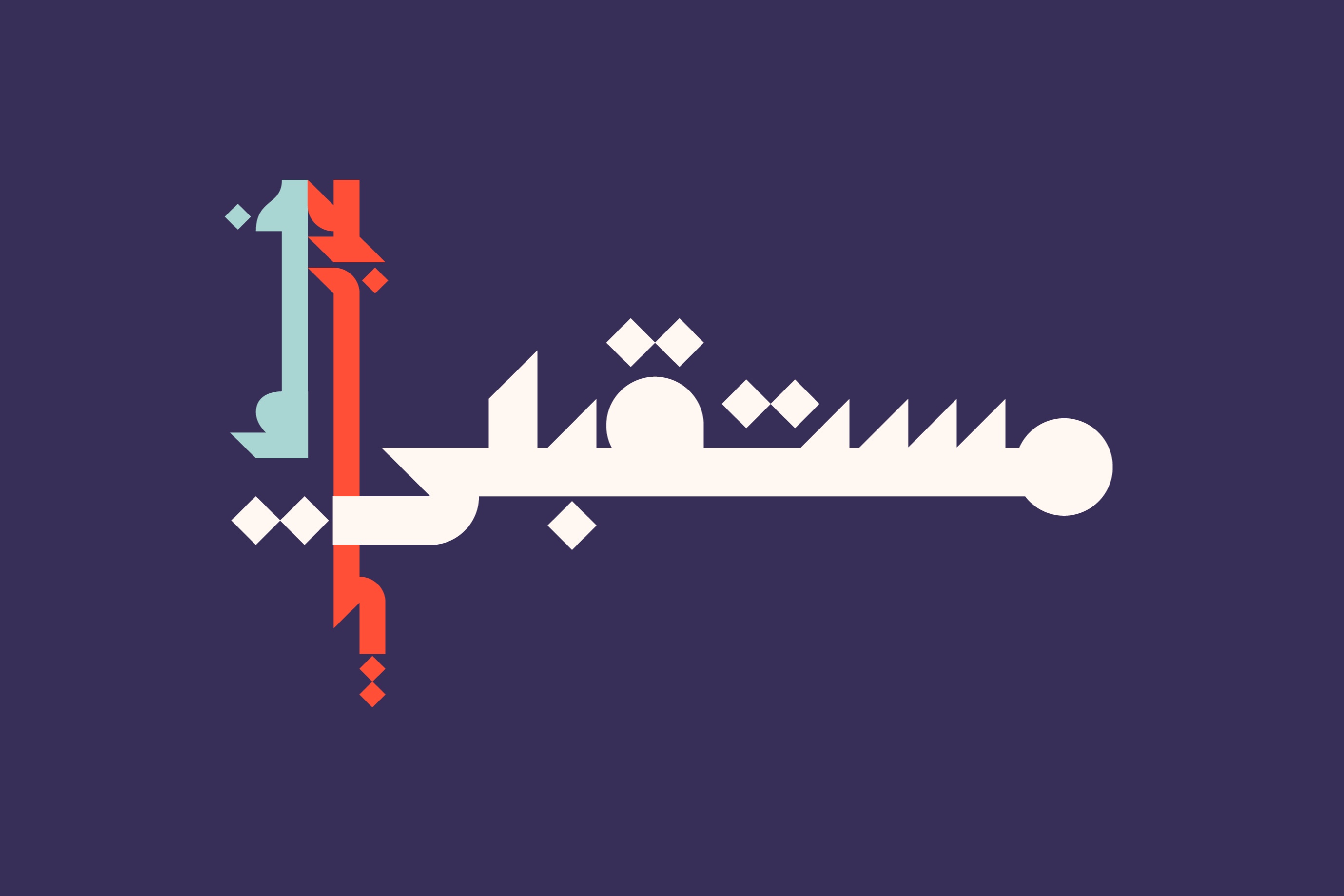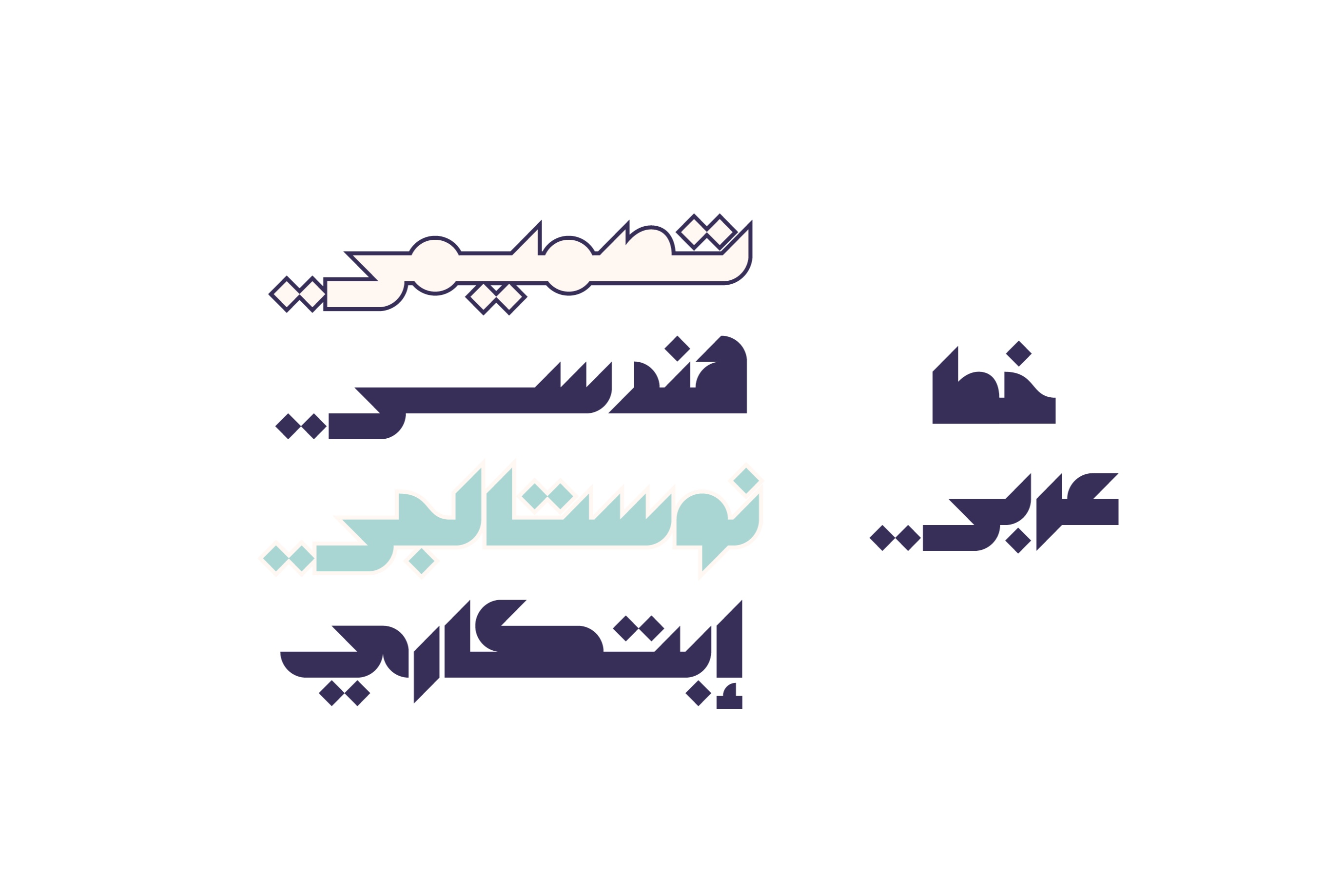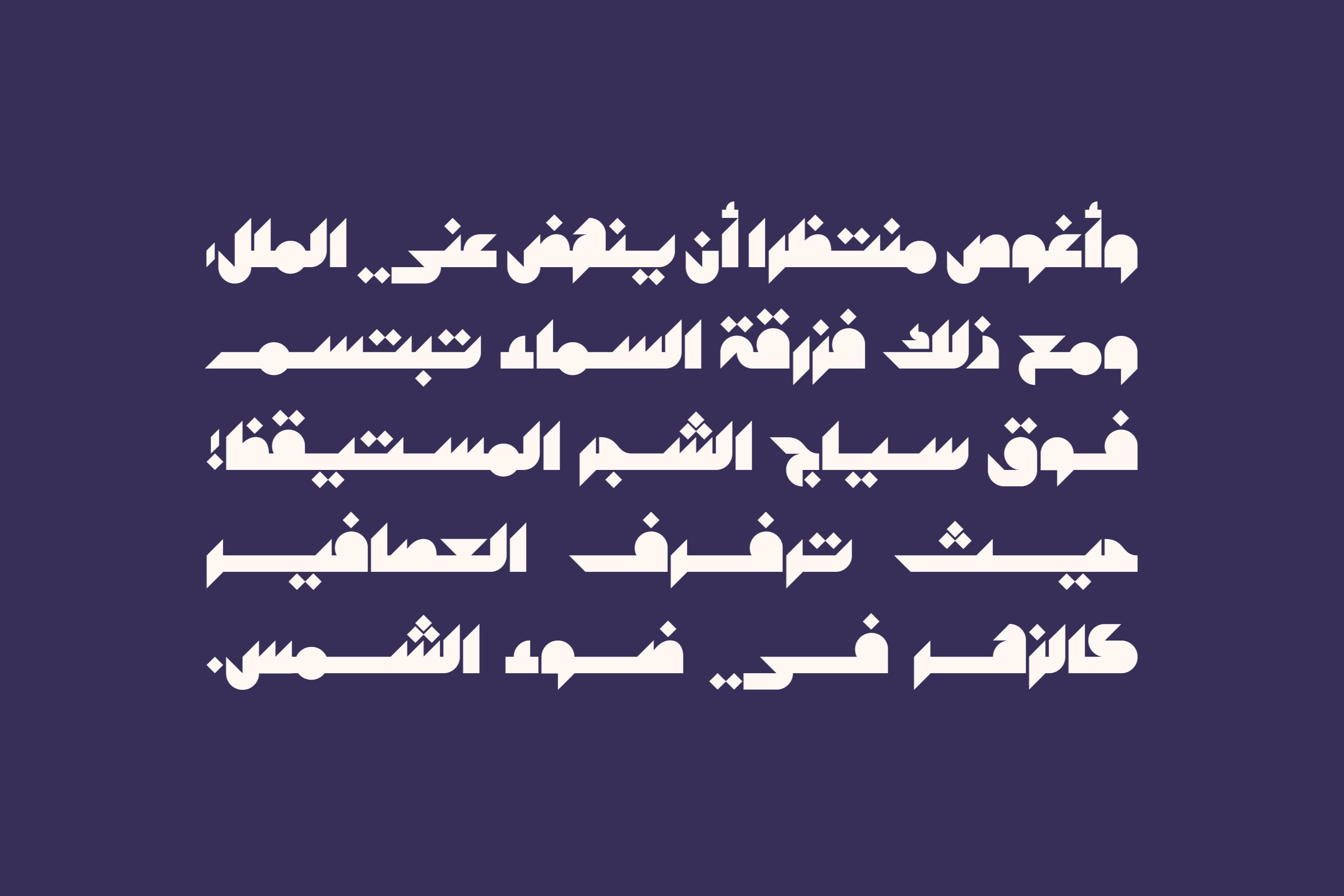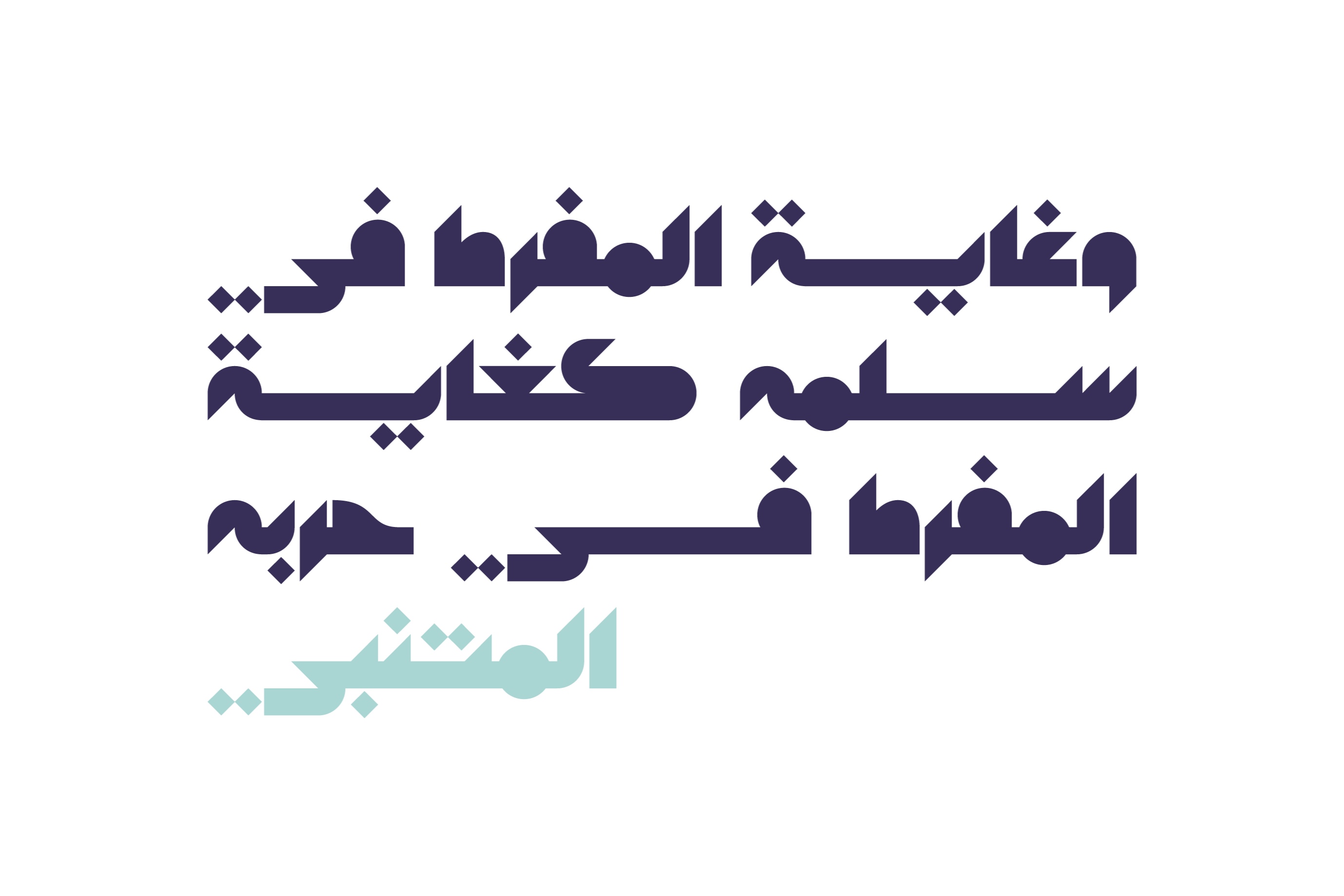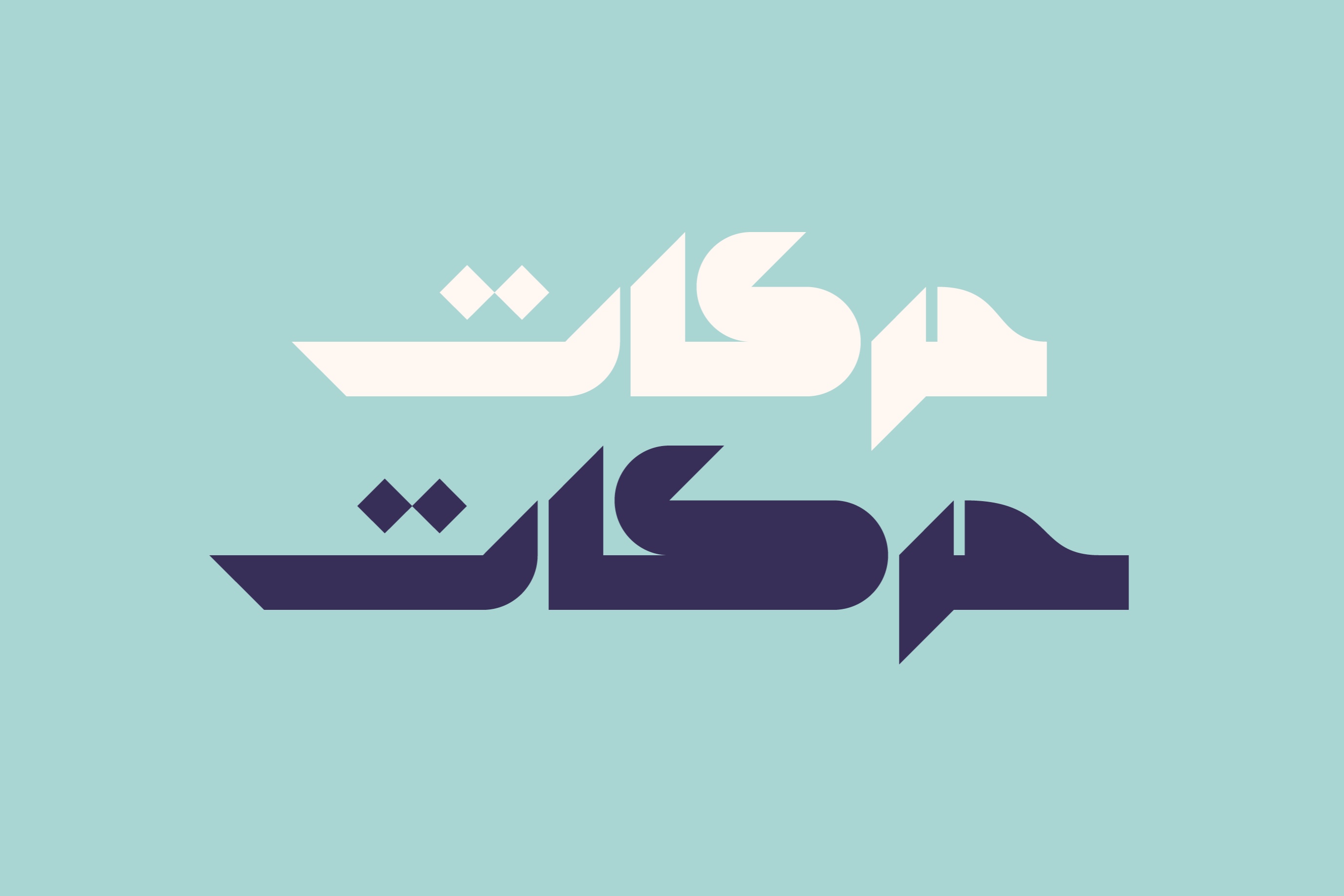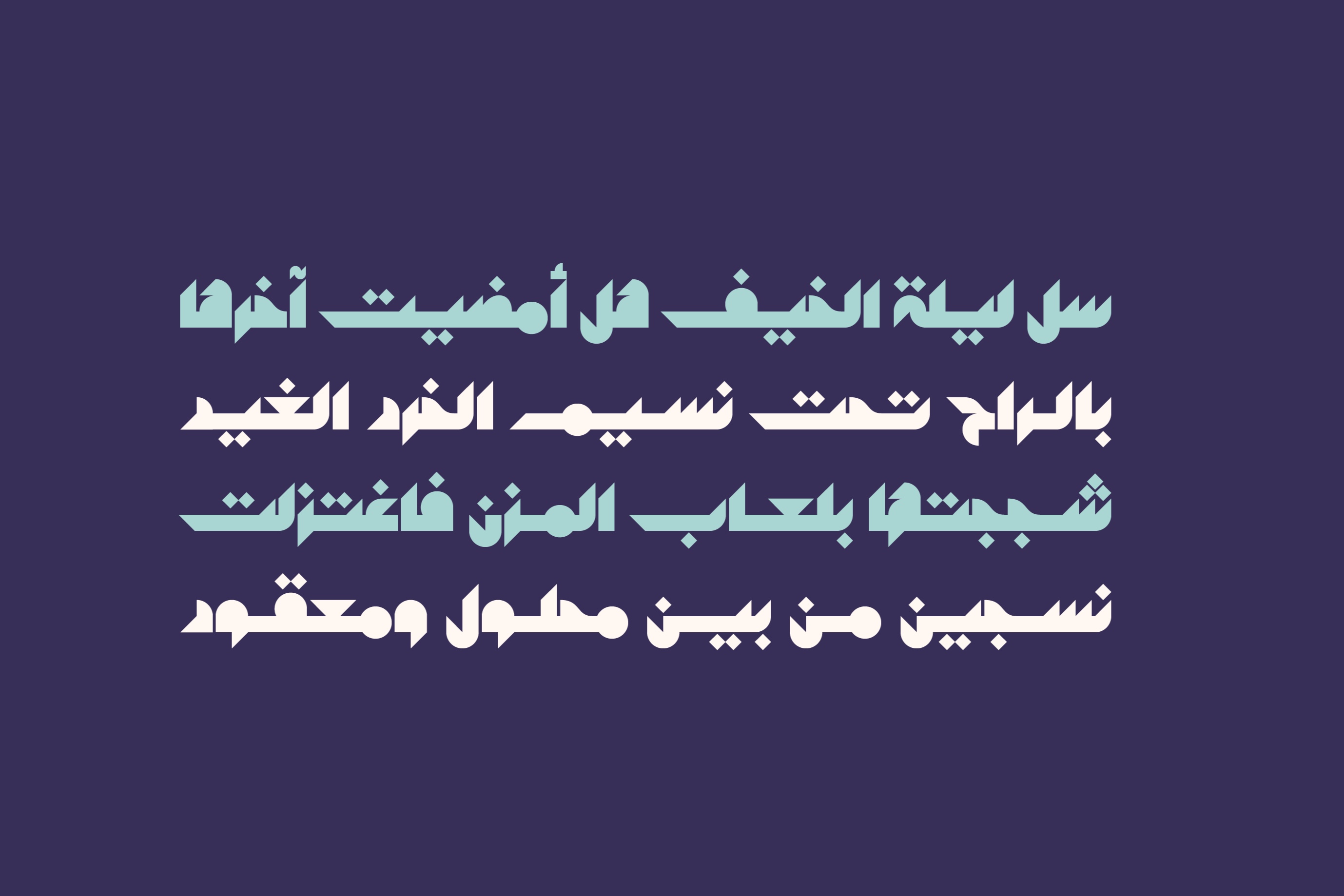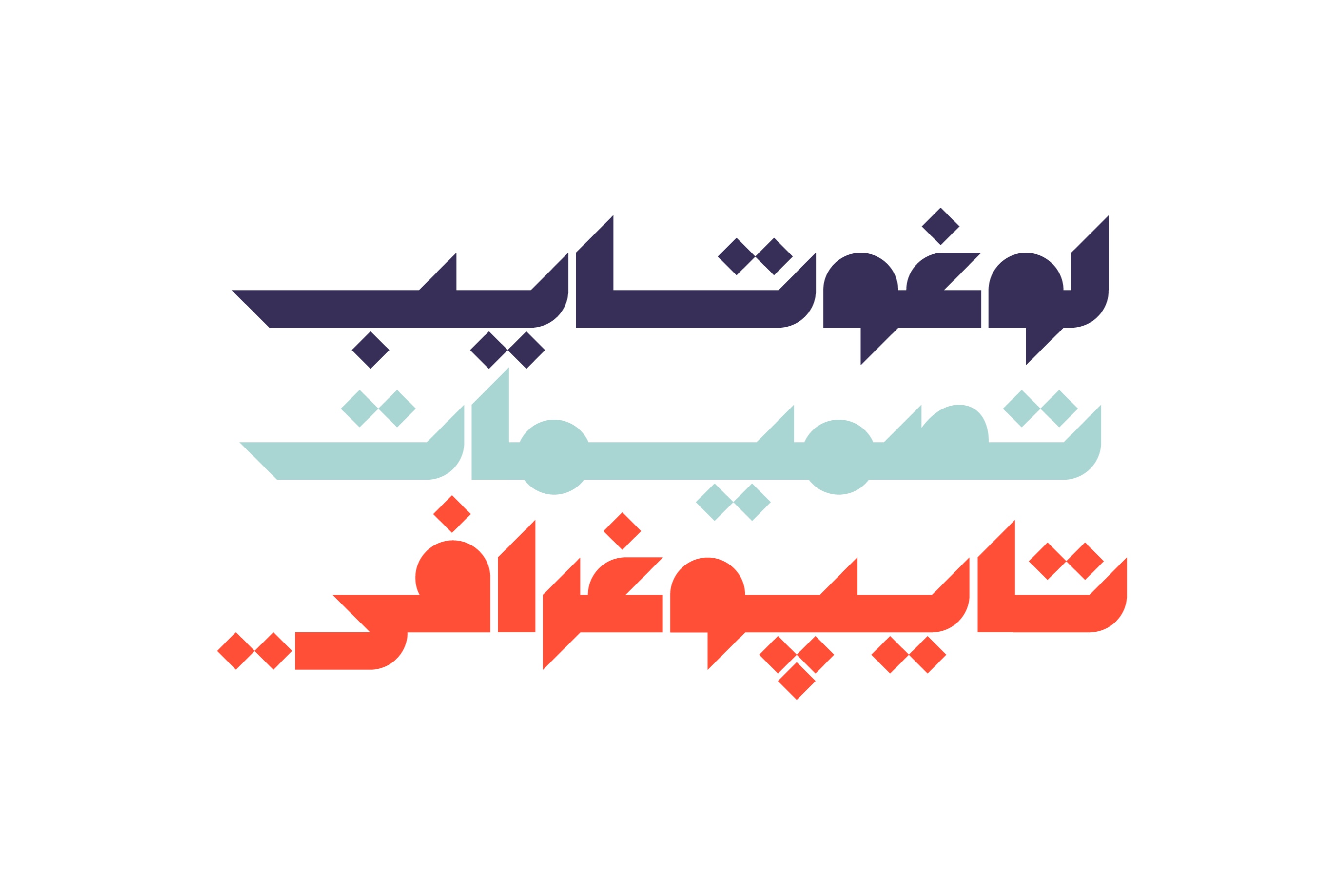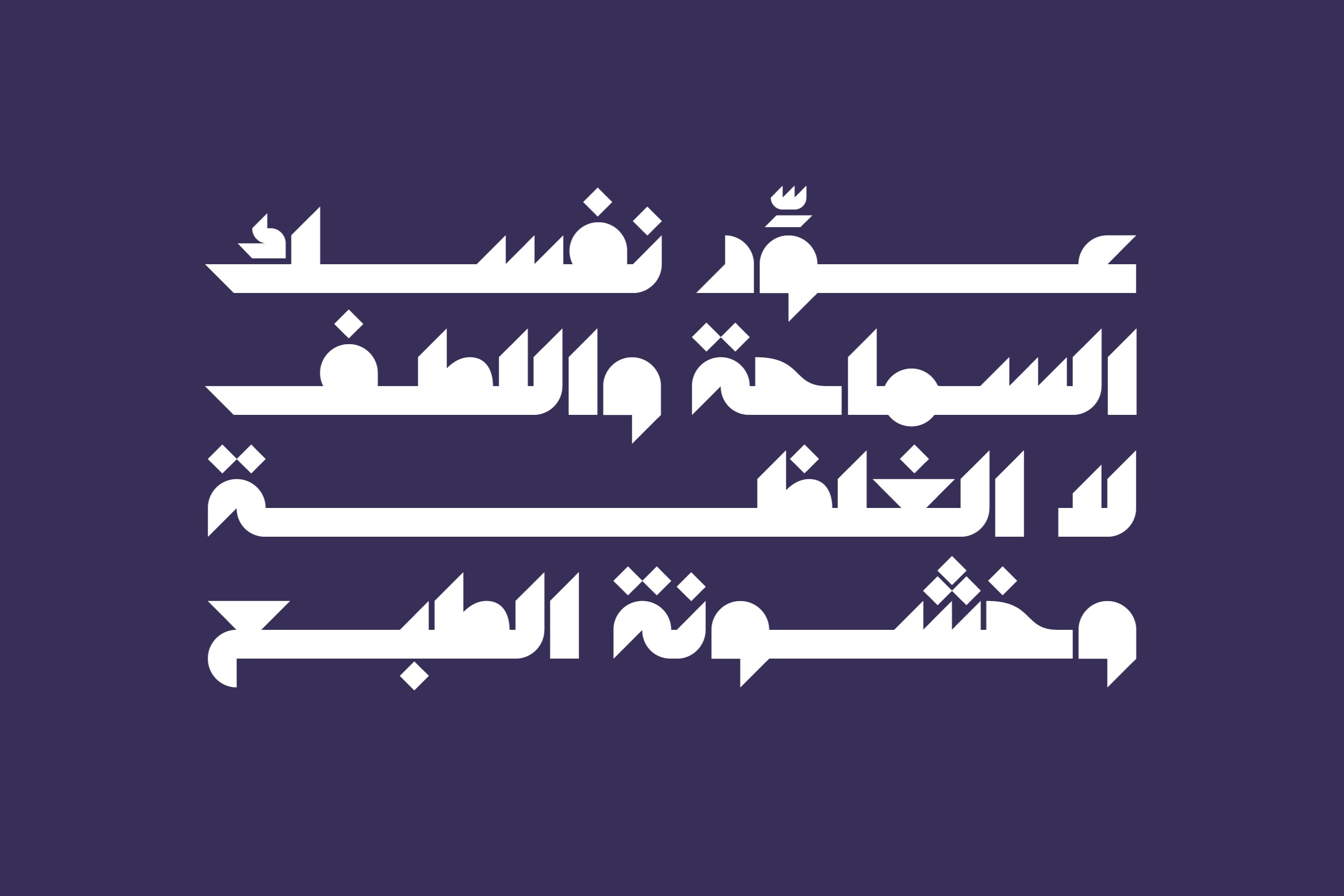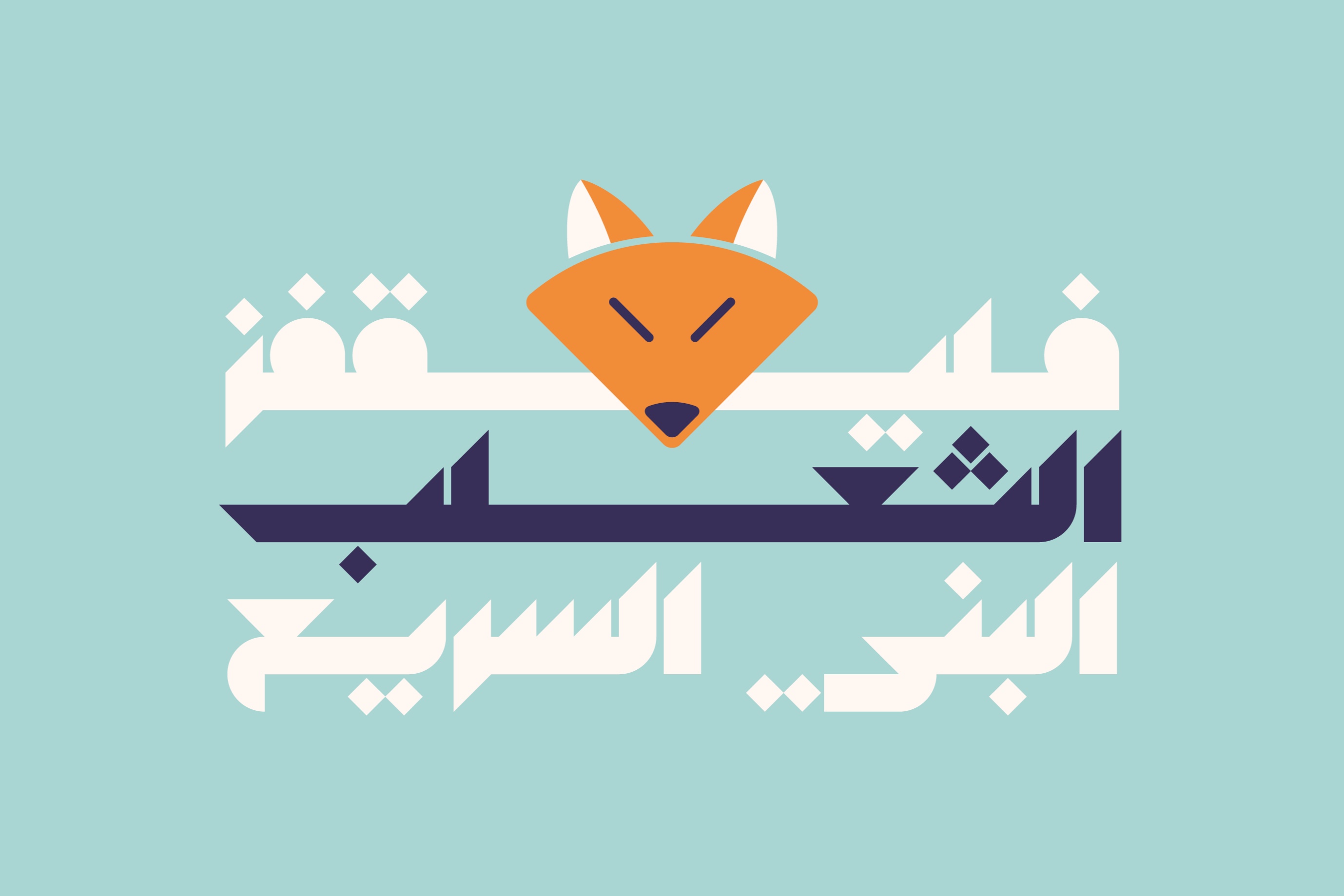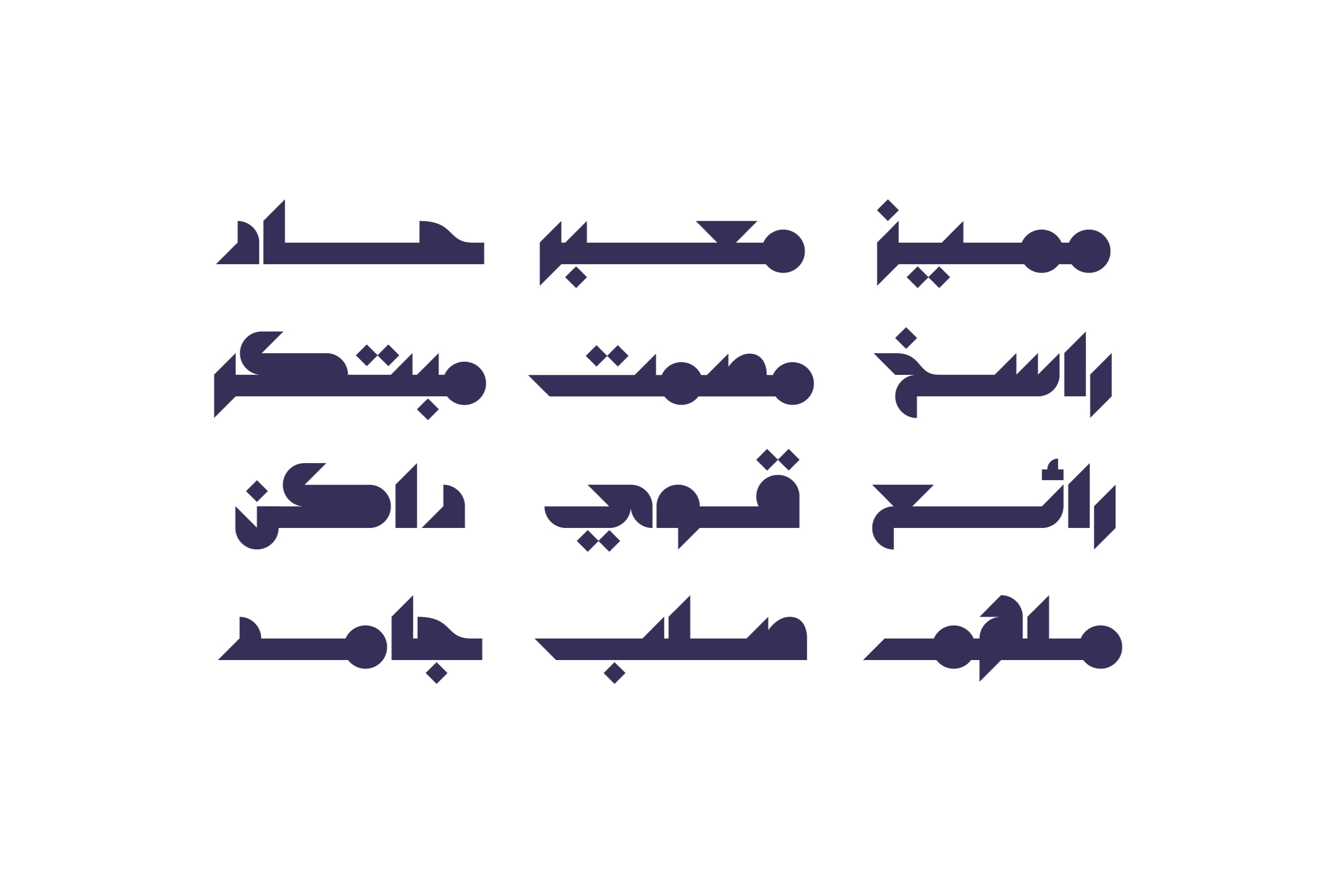
Mostaqbali (the Arabic for 'Futuristic') is an Arabic display font that features solid geometric structure with opaque lettering. The letterform design is inspired by the retro-futuristic style. Mostaqbali font suits a various range of modern design projects including web, print and mobile applications.
Single style
270+ Characters